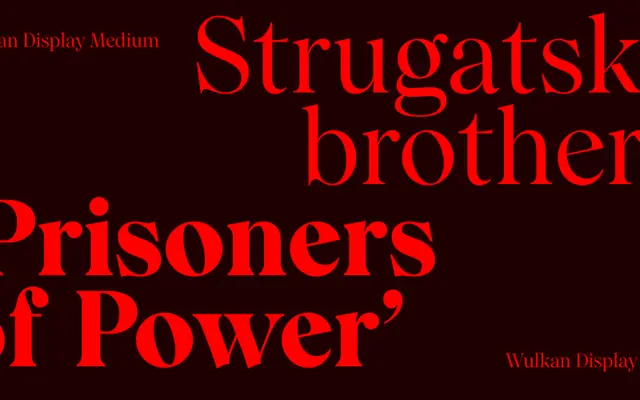
Wulkan Display
The Designers Foundry · Jan Estrada-Osmycki · 2019
A high-contrast display serif by Jan Estrada-Osmycki, drawing on old-style types and the work of Lubalin and Carnase for use at large sizes.
Designed between 2015 and 2019, it pairs thin hairlines and sharp, exaggerated strokes with ball terminals for a lively, vibrant character suited to headlines and branding. Slightly compressed proportions with short ascenders and descenders allow tight-setting for strong visual impact. Twelve styles span six weights from Light to Black with matching italics, plus three stylistic sets including slanted lowercase and alternate capitals.
A modern high-contrast serif with old-style influences, characterised by thin hairlines, sharp exaggerated elements and ball terminals. Its compressed proportions and tight-setting capability place it firmly in the display serif tradition.